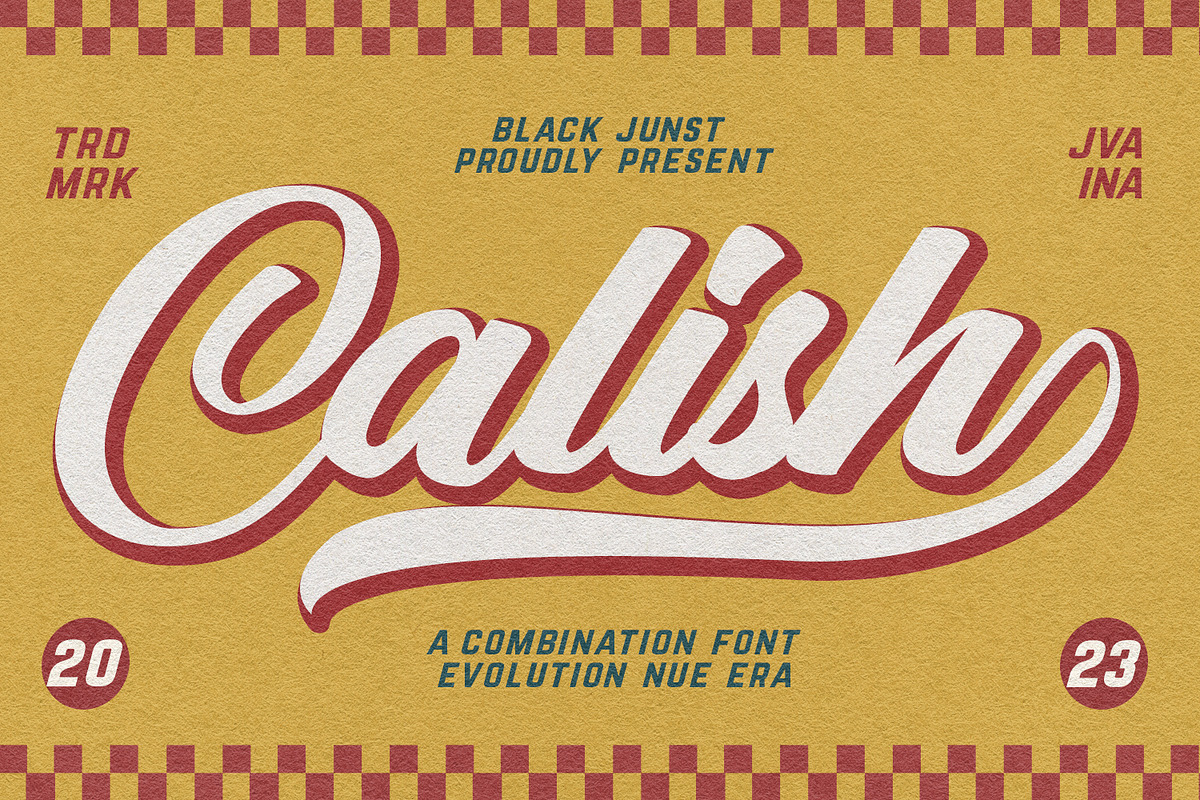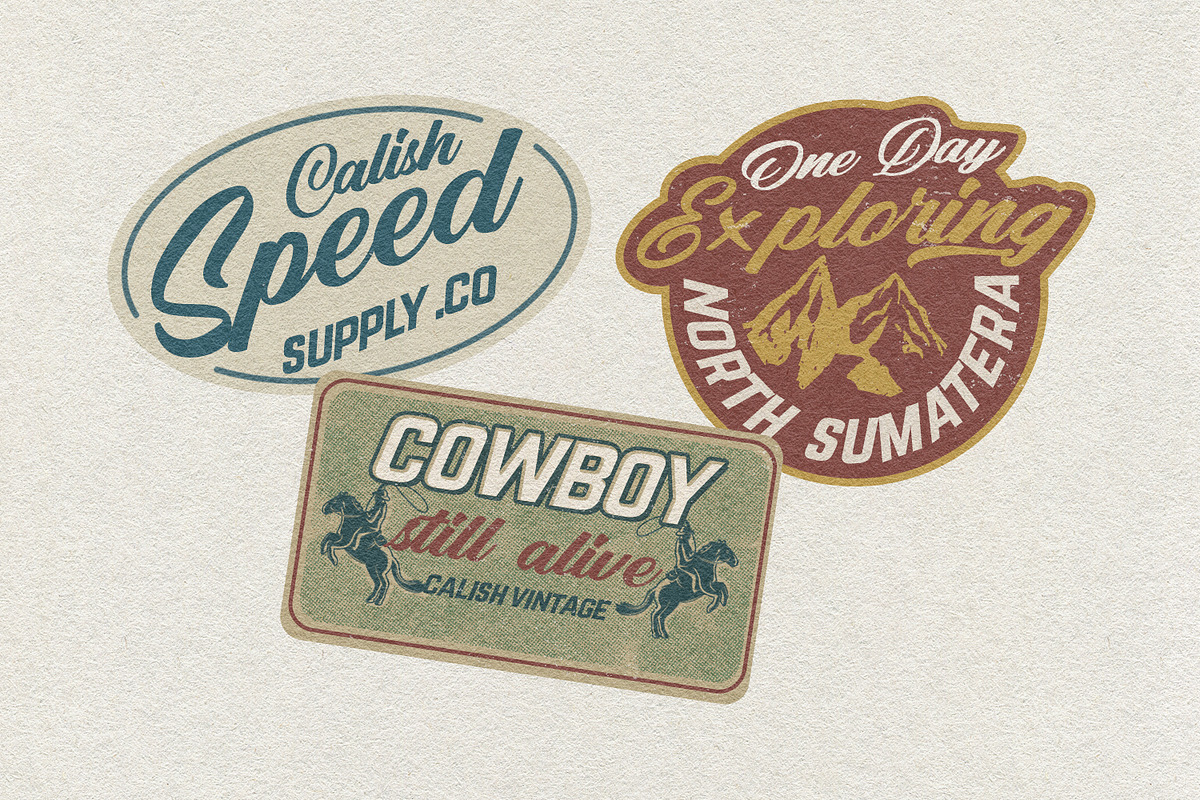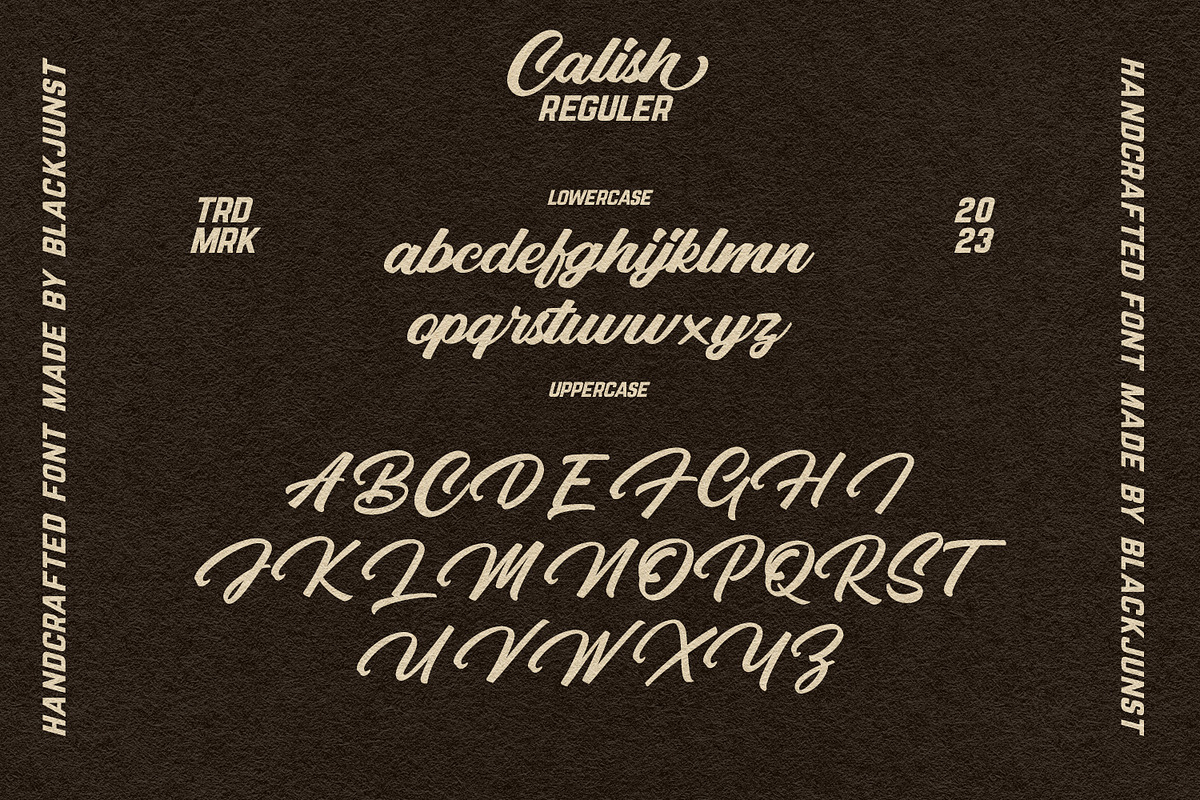
Calish Script
Calish emergence with originality and modernity will make all your design needs more attractive. This original curve makes the font seductive to the wearer.
Calish has common characters in it, such as uppercase, lowercase, numbers, and punctuation. You need to know. font support multilingual more than 100+ language and many option Character .
Calish can be a versatile font, it can be made into logos, social media campaign designs, to be used as magazine covers, brochures, and even t-shirts
Oh yeah, Calish also has an open feature that will add to your options for stringing words.